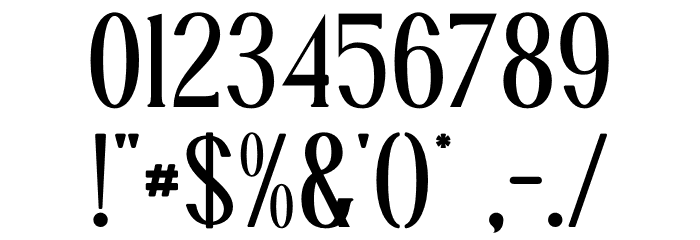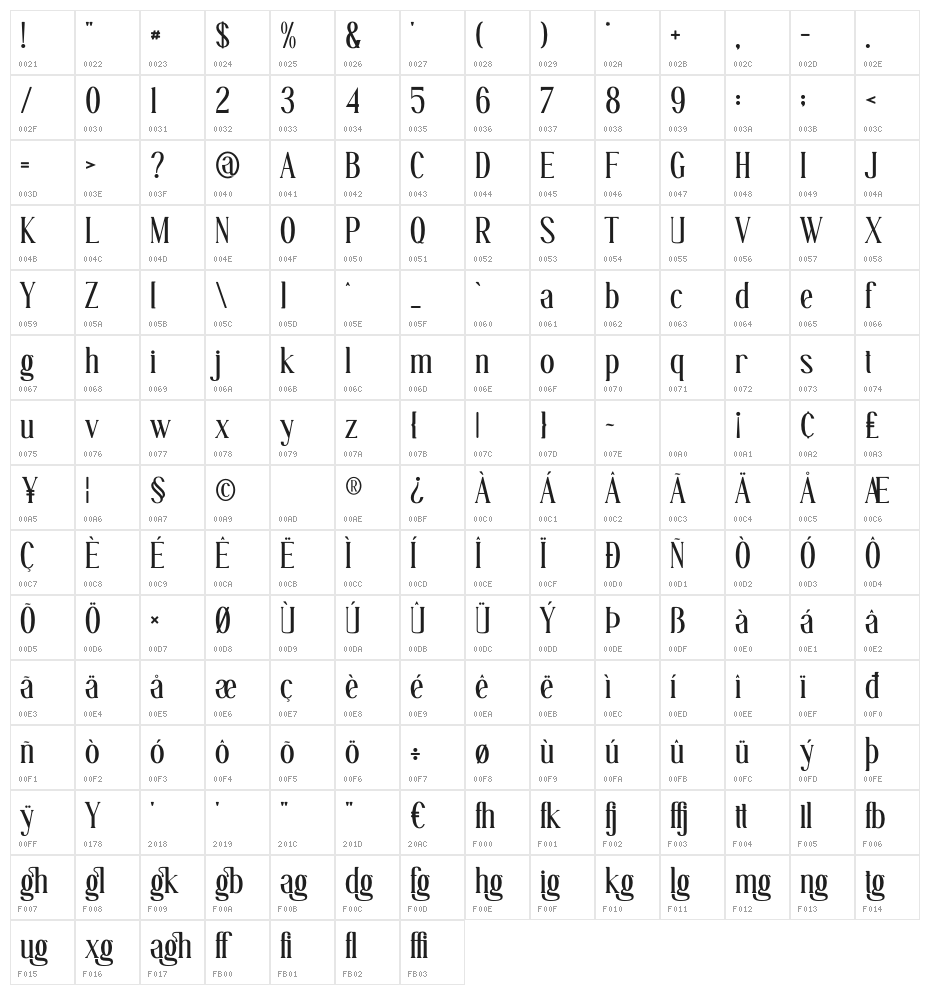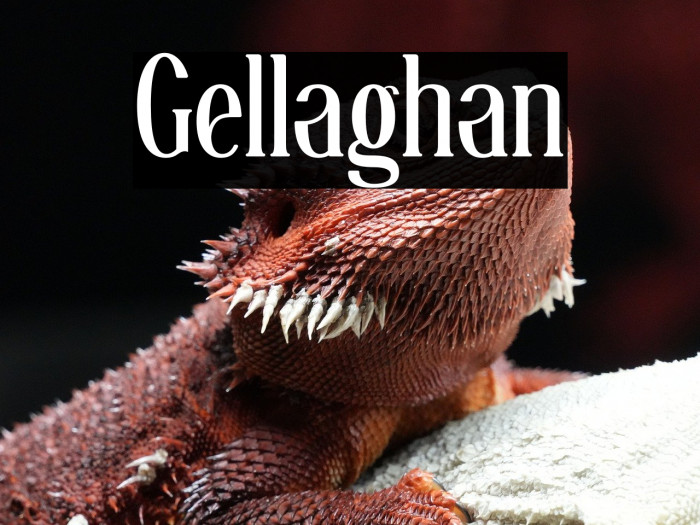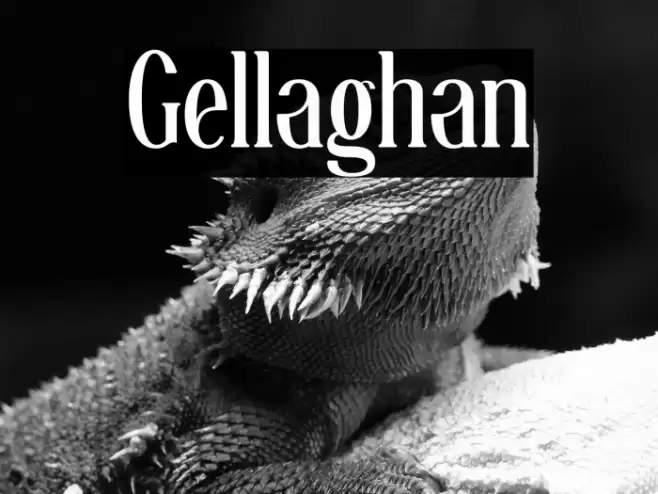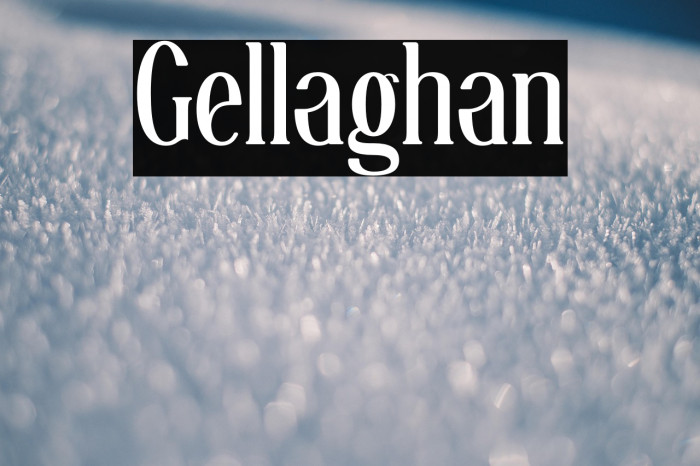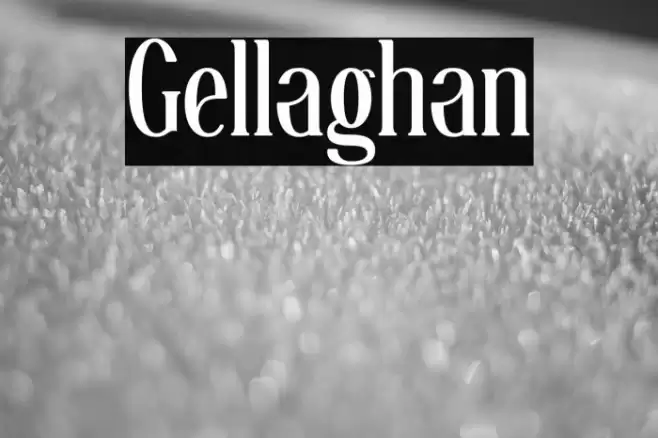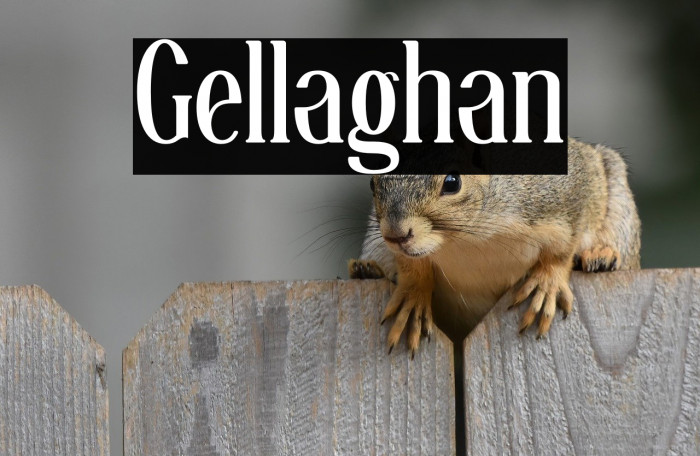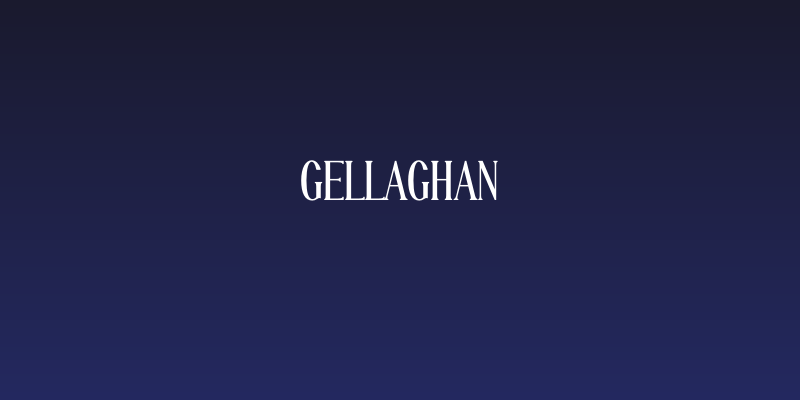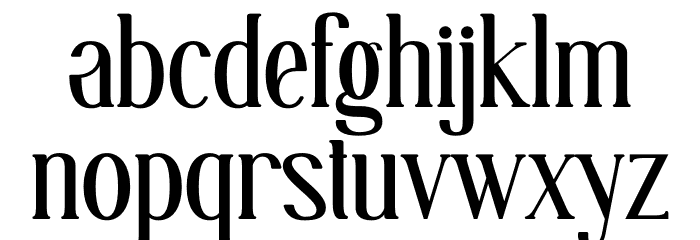
Gellaghan Font
Gellaghan Description
This font features a classic serif style with elegant, elongated strokes and a refined appearance. The uppercase letters are tall and narrow, giving a sophisticated and formal look. The lowercase letters maintain a consistent style with slight variations in stroke width, adding a touch of dynamism. The numerals are well-proportioned and align seamlessly with the overall aesthetic. Special characters are designed with the same attention to detail, ensuring versatility across various applications. The font's high contrast between thick and thin strokes enhances readability while maintaining an artistic flair.
| Proposed Projects | Ideal for editorial design, book covers, luxury branding, and formal invitations. |